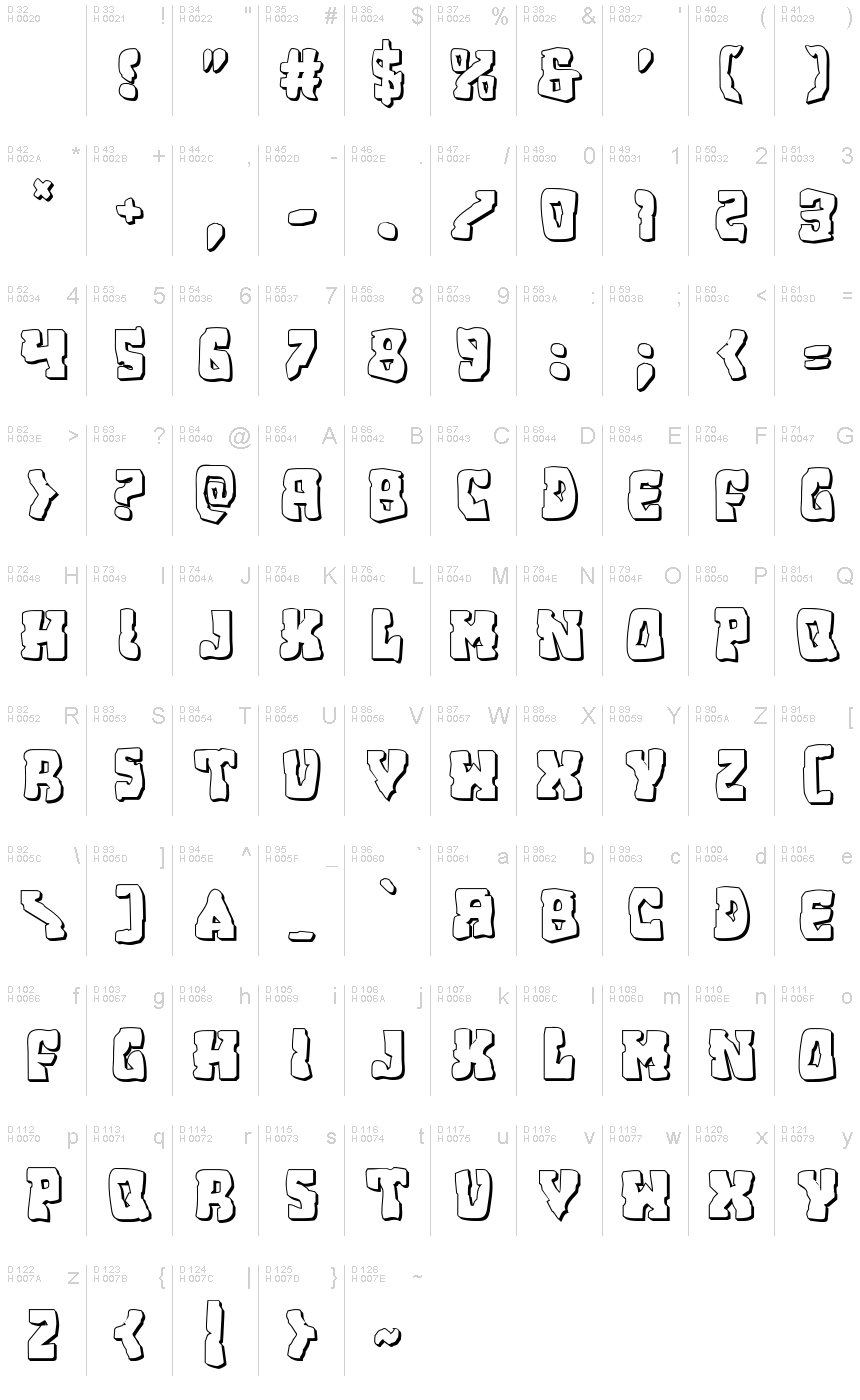
Beastian 3D font, part of the Beastian family designed by Iconian Fonts, captivates with its bold, vibrant aesthetic. The strikingly exaggerated characters exude a playful yet eerie vibe, making it perfect for eye-catching display purposes. Its three-dimensional effect and jagged edges evoke a sense of depth and excitement, instantly grabbing attention.
Ideal for Halloween-themed events, horror movie posters, or whimsical graphic designs, Beastian 3D brings an adventurous spirit to any project. Its unique style ensures that it stands out in advertisements or creative titles without overshadowing accompanying visuals. This font is not just a typeface; it's an invitation to explore the unexpected.